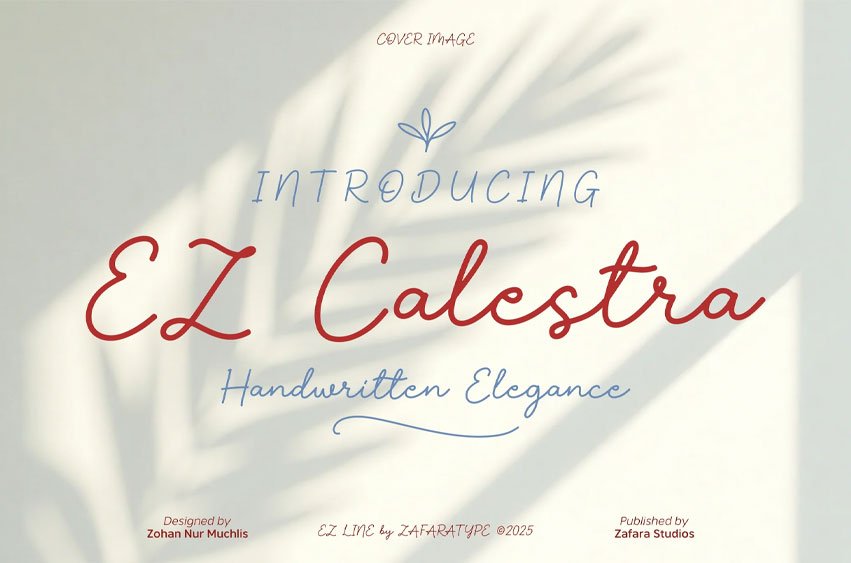
EZ Calestra Font is a soft and friendly rounded display font that captures the fun, bubbly spirit of modern playful design. With its chubby curves and smooth dough-like shapes, EZ Doughie brings a warm and cheerful personality to any project.
Perfect for logos, packaging, posters, branding, children’s products, social media graphics, and anything that needs a bold yet friendly touch. Wherever you want to add charm, sweetness, and a happy display vibe, EZ Doughie fits perfectly.
- 248 glyphs: Uppercase, lowercase, & ligatures, Numbers & punctuation, Symbols & accents, Multilingual support
- 25 languages: Afrikaans, Albanian, Basque, Catalan, Danish, Dutch, English, Estonian, Faroese, Filipino, Finnish, French, Galician, German, Icelandic, Indonesian, Irish, Italian, Malay, Norwegian Bokmål, Portuguese, Spanish, Swahili, Swedish, Zulu